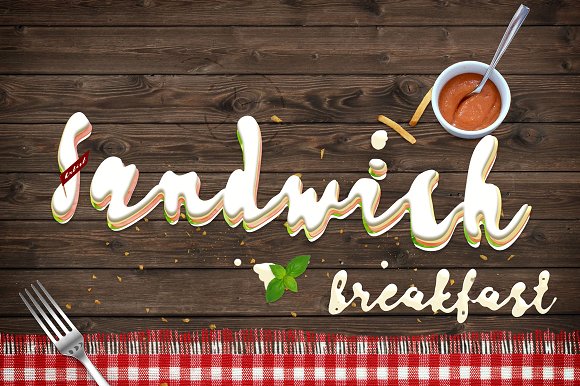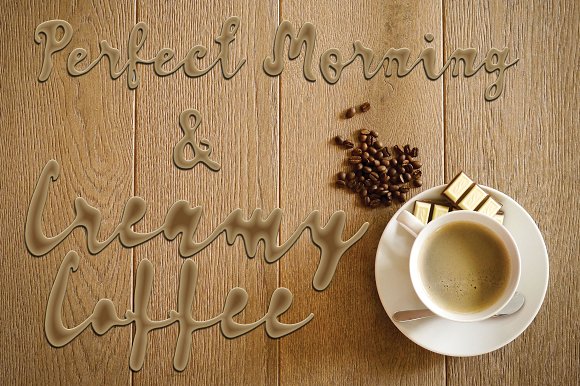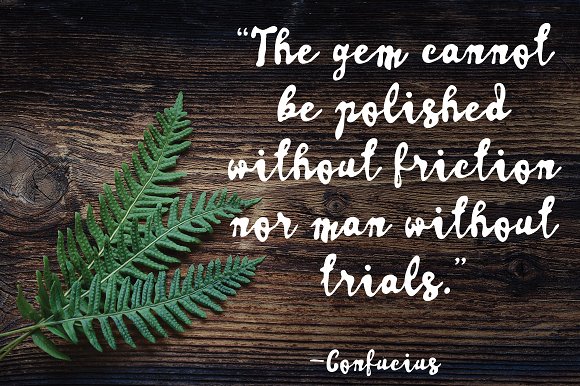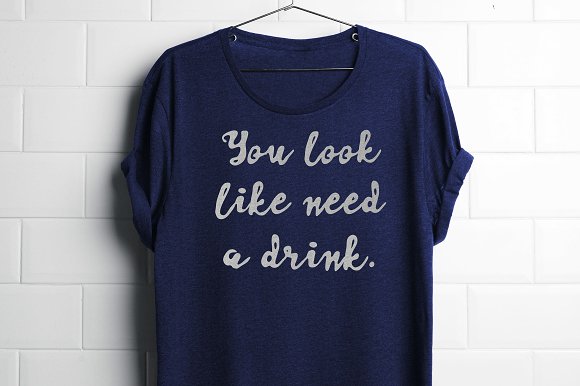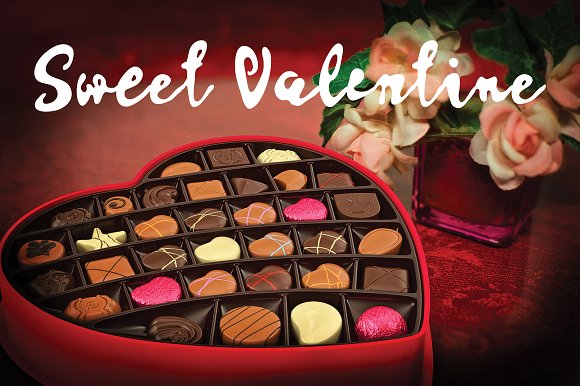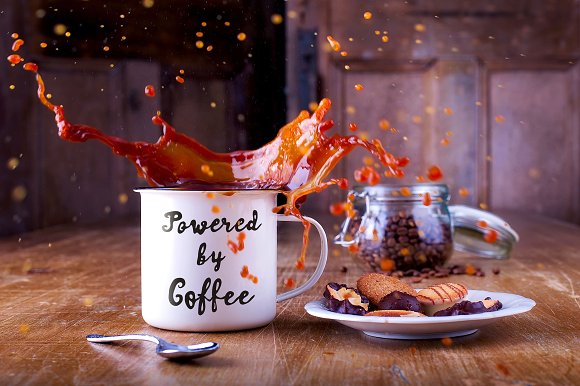
Discovering the Perfect Canvas: The Artisoya Font
As a designer, have you ever found yourself stuck in a creative rut, staring at a blank screen, and yearning for the perfect font to bring your vision to life? That’s exactly where I was when I stumbled upon the Artisoya Font, created by the talented Darwinoo.
This elegant and refined font is more than just a pretty face – it’s a versatile tool designed to elevate your designs and leave a lasting impression. With its unique blend of modernity and sophistication, the Artisoya Font is perfect for anyone looking to add a touch of class to their work. Whether you’re a seasoned pro or just starting out, this font is sure to become your go-to companion for creating stunning visuals.
Key Features of Artisoya Font
- Character Set: Supports Latin, Cyrillic, Greek, and other languages
- Unique Characteristics: Artisoya Font features a unique blend of modern and vintage elements, with intricate details and ornate flourishes, making it perfect for creative and artistic projects
Review of Artisoya Font
I recently had the chance to work with the Artisoya font, and I must say it’s a lovely addition to any design project. ✨ The elegant, cursive script of the font adds a touch of sophistication and elegance to any text. It’s perfect for projects that require a high-end or luxurious feel.
Some of the things that work well with Artisoya include:
- Beautiful, flowing lines that add a sense of movement to text
- A wide range of styles and weights to choose from
- Excellent legibility, even at smaller font sizes
- Works well with a variety of design themes and styles
- Some of the more ornate styles can be a bit difficult to read at smaller sizes
- Not suitable for projects that require a bold, sans-serif font
- Can be a bit overused, especially in wedding or event design
Overall, I’m quite impressed with the Artisoya font. While it may have some limitations, it’s a great choice for projects that require a touch of elegance and sophistication. With careful use, it can add a lot of visual interest and depth to your designs.
Artisoya Font is ideal for creative projects, such as:
1. Invitations and event graphics.
2. Social media graphics and advertisements.
3. Branding and marketing materials.
For best results, use Artisoya Font in conjunction with high-quality images and creative layouts.
Alternatives to Artisoya Font for Designers
The Great Vibes Font is a modern, elegant script font ideal for creating a sense of sophistication and style. It is perfect for use in wedding invitations, branding materials, and other high-end design projects. Great Vibes Font has a more refined and polished look compared to Artisoya Font, making it suitable for formal and professional designs.
Carolyna Pro Font is a versatile and elegant script font that can be used in a wide range of design projects, from branding materials to editorial content. It has a more fluid and organic feel compared to Artisoya Font, making it ideal for creating a sense of warmth and personality. Carolyna Pro Font is perfect for use in modern and trendy designs.
Alex Brush Font is a beautiful and elegant script font that is perfect for use in high-end design projects, such as luxury branding materials, wedding invitations, and fine art prints. It has a more refined and delicate look compared to Artisoya Font, making it suitable for formal and sophisticated designs. Alex Brush Font is ideal for creating a sense of luxury and elegance.
The Dancing Script Font is a fun and playful script font that is perfect for use in modern and trendy design projects, such as social media graphics, advertisements, and editorial content. It has a more energetic and dynamic feel compared to Artisoya Font, making it ideal for creating a sense of excitement and playfulness. Dancing Script Font is perfect for use in youthful and energetic designs.
What font sizes and styles are included in the Artisoya Font family?
The Artisoya Font family includes a range of font sizes and styles, including 8 different weights (Light, Thin, Regular, Medium, Bold, Heavy, Black, and Outline) and 3 different font sizes (Small Caps, Old Style Figures, and Lining Figures). This allows for a high degree of flexibility and customization in your design work.